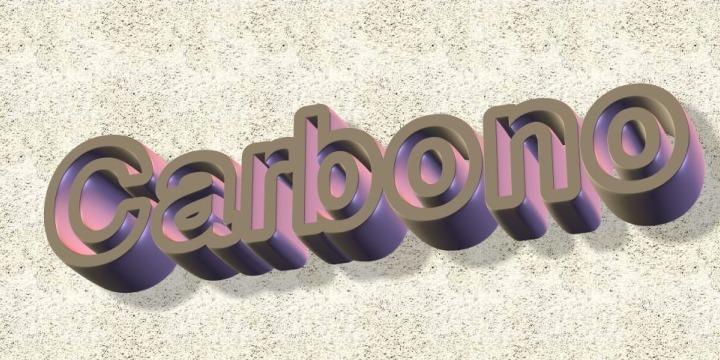
carbono
Carbono font by Paulo W. is a free outlined sans with big rounded shapes and a soft, inflated feel. The thick black edge gives it a sticker-like punch, so short words stay clear and playful on posters, album art, kids’ branding, YouTube thumbnails, packaging, badges, and casual event flyers.
This free font works best when you want energy without looking messy or loud. Carbono keeps its rhythm even at larger sizes, and the open interior space helps the word stay readable for logos, social graphics, merch prints, app splash screens, and headline banners; pair it with a plain neutral sans for body copy.